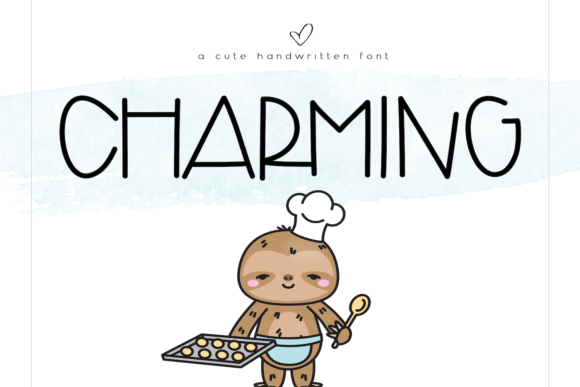
Have you ever been working on a design project, pouring your heart and soul into every detail, and then – it all comes together in a moment of pure magic? The colors pop, the typography is on point, and the entire design just feels alive. That’s exactly what happens when you incorporate the right font into your work. And for designers looking to add a touch of whimsy and charm to their projects, the Charming Font is the perfect solution.
This beautiful display font is designed to evoke a sense of youthfulness and playfulness, making it a valuable addition to any designer’s toolkit. With its sweet and endearing qualities, the Charming Font is sure to turn even the most mundane design project into a standout. Whether you’re working on a branding project, a wedding invitation, or a social media campaign, this font is sure to bring a smile to your face and delight your clients.
Charming Font Key Features
- Font Family: Charming Font is a sans-serif font family, available in multiple styles (Regular, Italic, Bold, Bold Italic).
- Size: The font family includes a range of font sizes, from 8pt to 72pt, with precise control over font scaling.
- Resolution: Optimized for high-resolution displays (Retina, 4K, etc.), with clear and legible rendering at any resolution.
- Unique Characteristics: Charming Font features a unique blend of modern and classic design elements, with subtle rounded edges and a friendly feel.
Designer Review: Charming Font
Overall, I think Charming Font is a nice addition to any design project, but it’s not without its flaws. Let’s dive into the good and the bad.
- Unique and Playful: Charming Font has a quirky charm that can add a touch of personality to any design. Its irregularities make it stand out and grab attention.
- Good Legibility: Despite its playful nature, Charming Font is surprisingly easy to read, making it suitable for body text and headings.
- Style Versatility: This font can be used in a variety of styles, from modern to vintage, depending on the design context.
- Limited Versatility: While Charming Font can be used in various styles, its unique characteristics may not be suitable for more formal or professional designs.
- Not Ideal for Small Text: The font’s irregularities can make small text difficult to read, especially at lower font sizes.
Overall, I think Charming Font is a fun and creative option for designers looking to add a bit of personality to their projects. While it may not be the best choice for every design, it’s a great option for those who want to add a touch of whimsy and charm.
Charming Font is ideal for:
- Creating elegant and sophisticated branding materials.
- Designing wedding invitations and stationery.
- Adding a touch of whimsy to children’s book illustrations.
Tips for Getting the Most Out of Charming Font
Experiment with different font sizes, colors, and styles to create unique and eye-catching designs.
Pair Charming Font with other elegant fonts to create a sophisticated and harmonious visual identity.
Alternatives to Charming Font for Designers
Playfair Display is an elegant, luxurious script font that works well for headings, titles, and other prominent text. It’s perfect for creating a sophisticated and high-end look.
Compared to Charming Font, Playfair Display has a more refined and ornate feel, making it suitable for luxury brands, high-end fashion, and fine dining.
Lato is a clean, modern sans-serif font that’s highly legible and versatile. It’s ideal for body text, titles, and other everyday use.
Lato is more straightforward and minimalist compared to Charming Font, which has a more playful and whimsical feel. Lato is better suited for modern, tech, and business-related projects.
Great Vibes is a beautiful, elegant script font that’s perfect for creative and artistic projects. It’s great for headings, titles, and other prominent text.